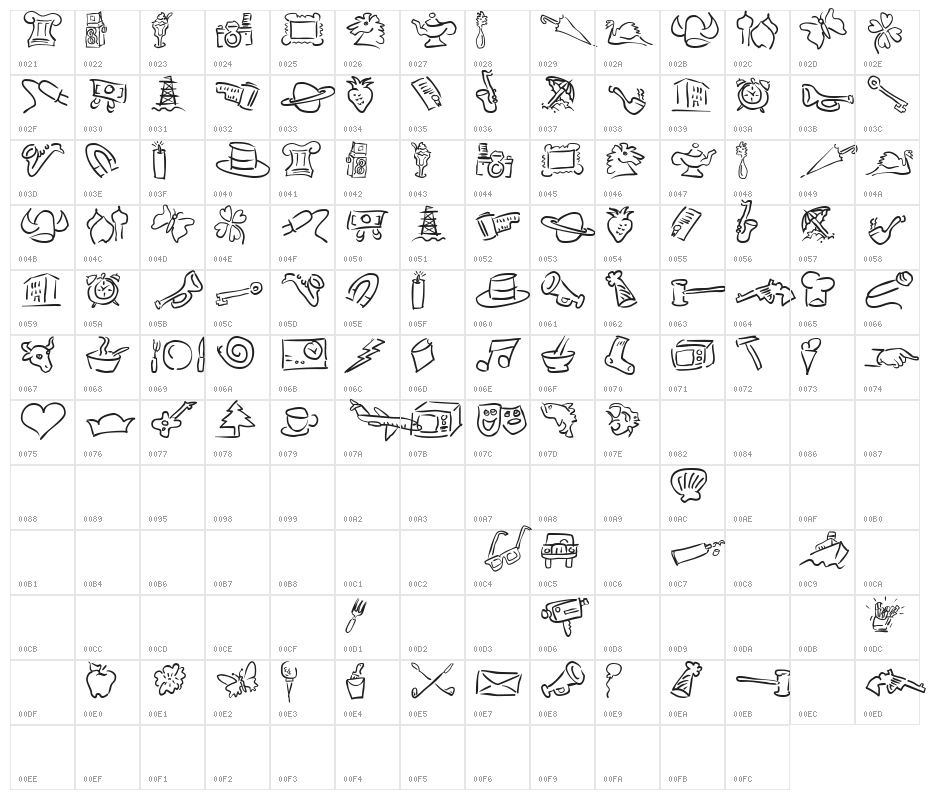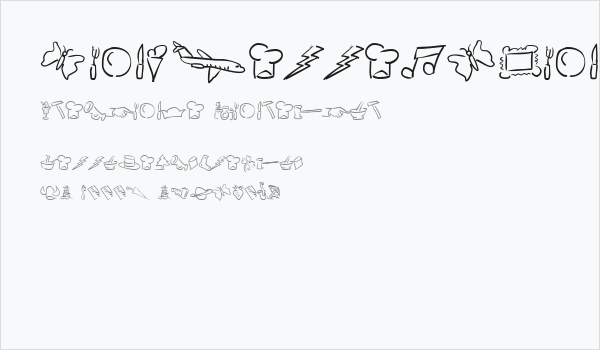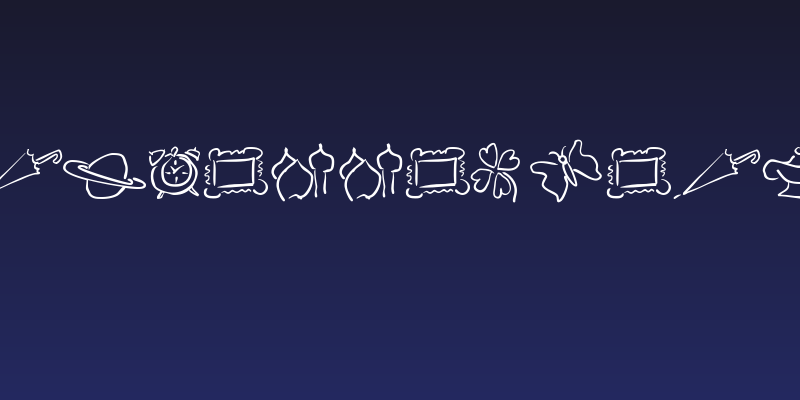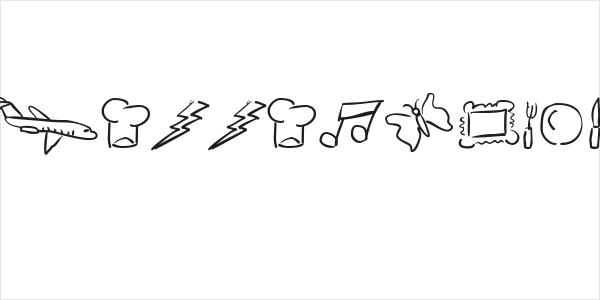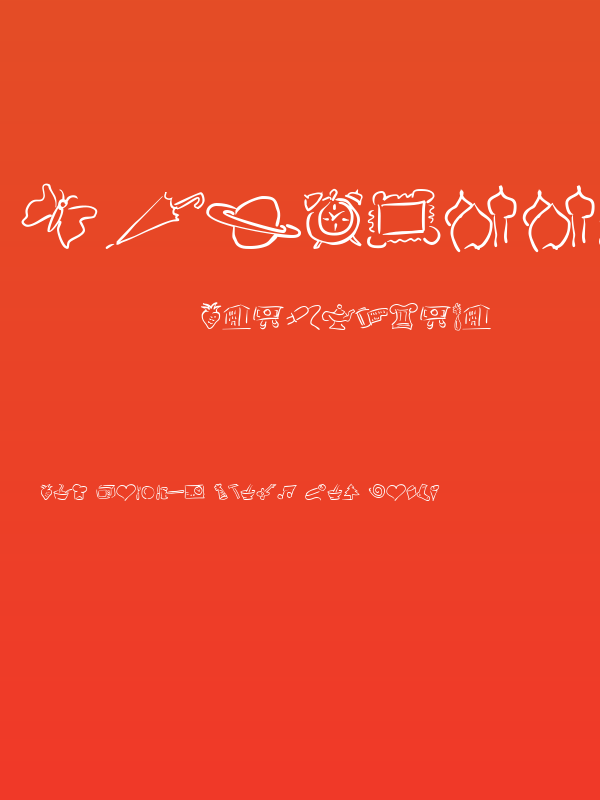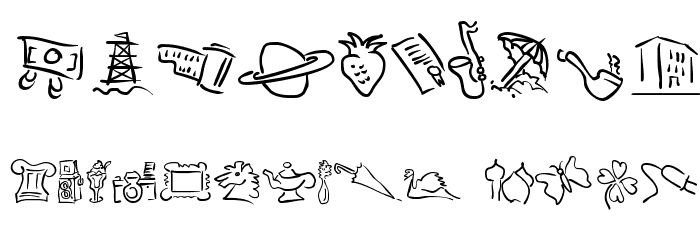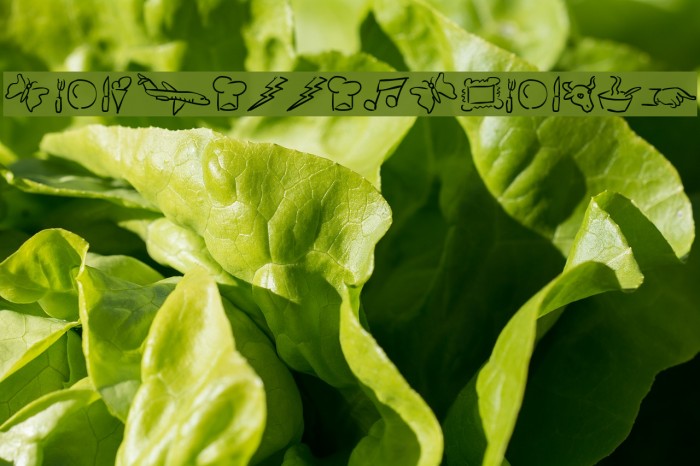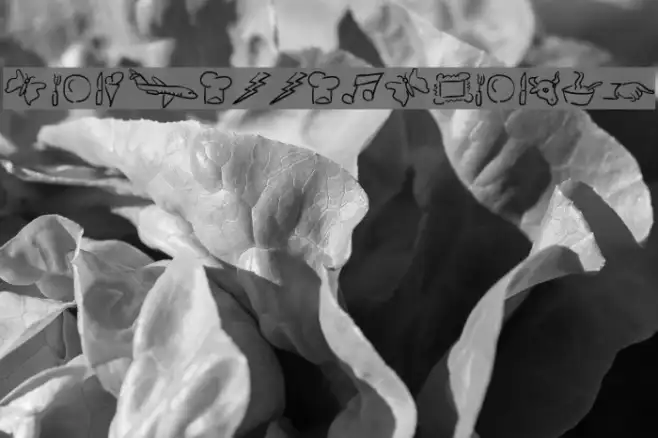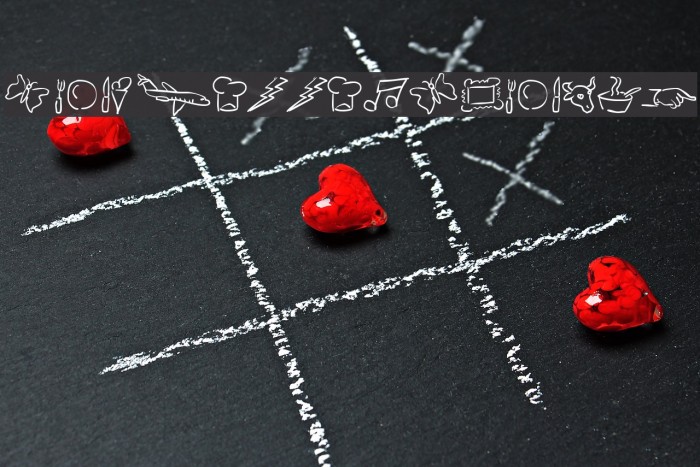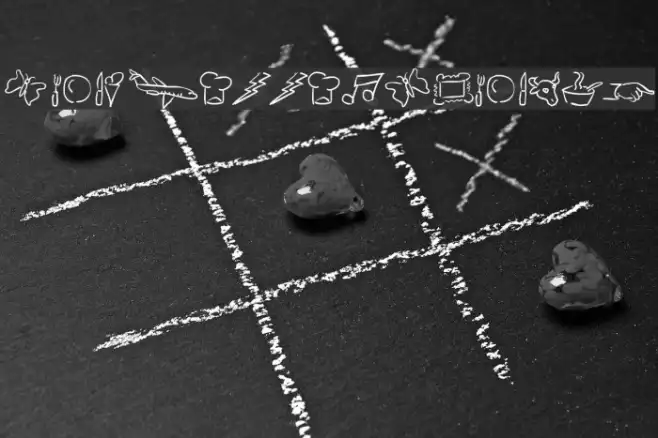
Miszellen-Eight Font
Miszellen-Eight Description
This font is a whimsical and playful collection of pictograms, each character representing a unique and imaginative illustration. The designs are varied, featuring objects, animals, and abstract shapes, all drawn with a hand-drawn, sketch-like quality. The lines are smooth and flowing, giving each symbol a dynamic and lively appearance. The font lacks traditional letterforms, instead offering a creative assortment of icons that can be used to add a touch of fun and creativity to any project. The characters are well-spaced, ensuring clarity and readability despite their intricate designs.
| Use Case | Logos, Decorative elements |
| Proposed Projects | Ideal for creative projects such as children's books, playful invitations, or unique branding materials. |